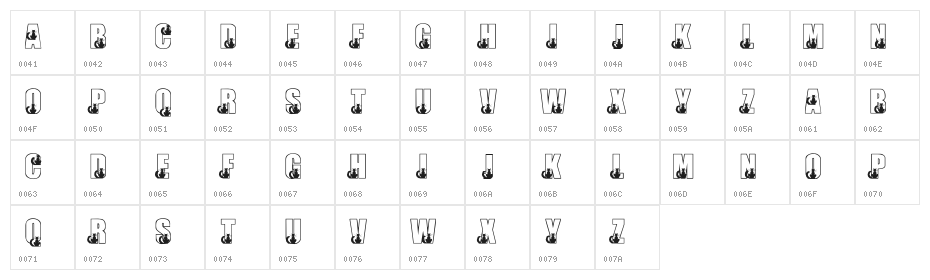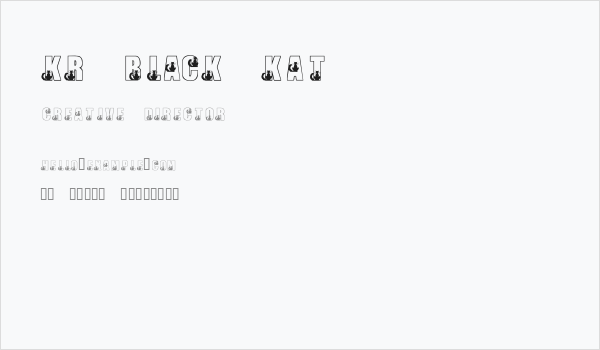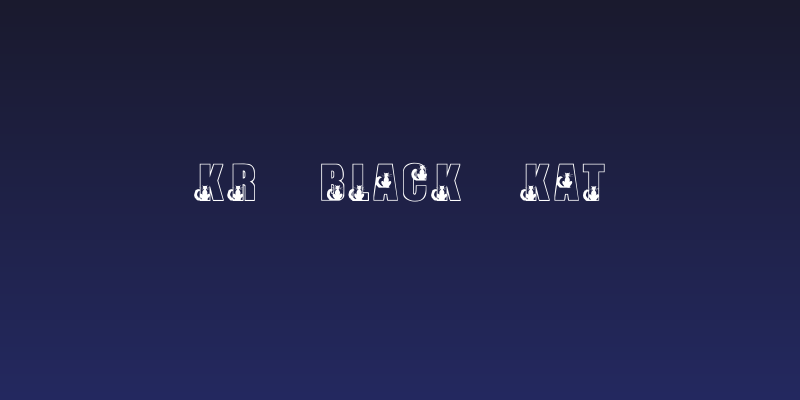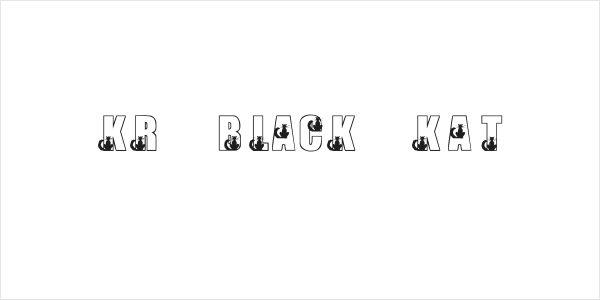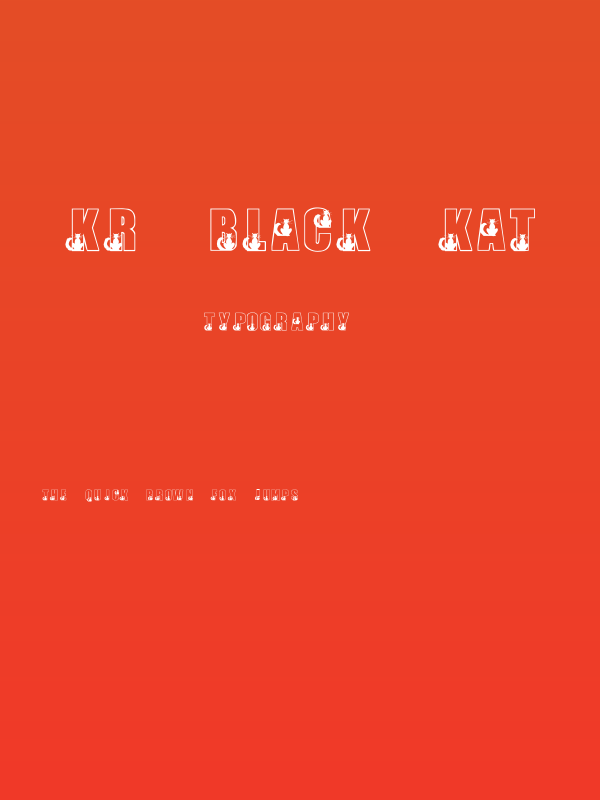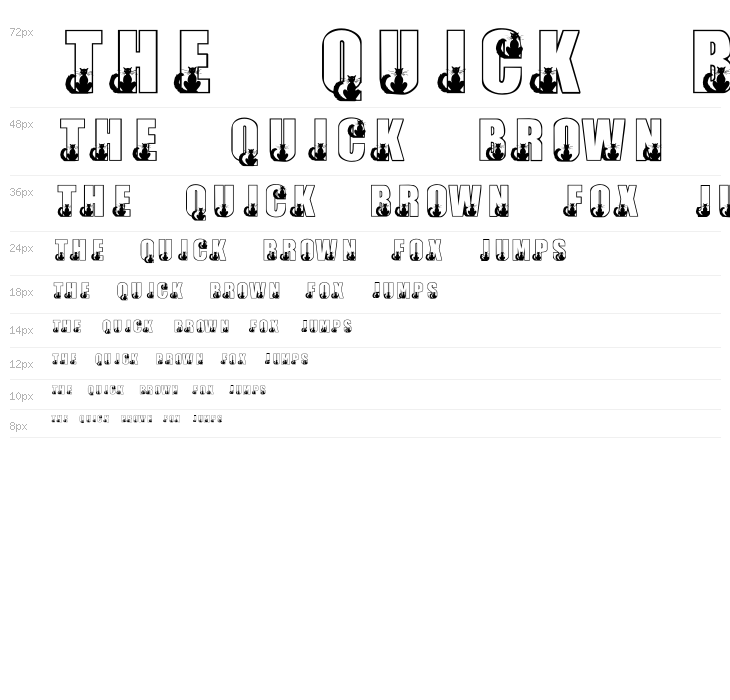
KR Black Kat Font
KR Black Kat Description
This font features a playful and whimsical design, incorporating silhouettes of black cats into the structure of each letter. The uppercase and lowercase letters are bold and have a decorative flair, making them stand out with the unique cat motif. The numbers and special characters follow the same theme, ensuring a cohesive look across all text elements. The font's style is eye-catching and ideal for projects that require a fun and quirky touch.
KR-BLACK-KAT UPPERCASE
KR-BLACK-KAT LOWERCASE
KR-BLACK-KAT OTHER CHARS
| Use Case | Headlines, Logos, Themed Events |
| Proposed Projects | Perfect for Halloween-themed designs, children's book covers, party invitations, and playful branding materials. |